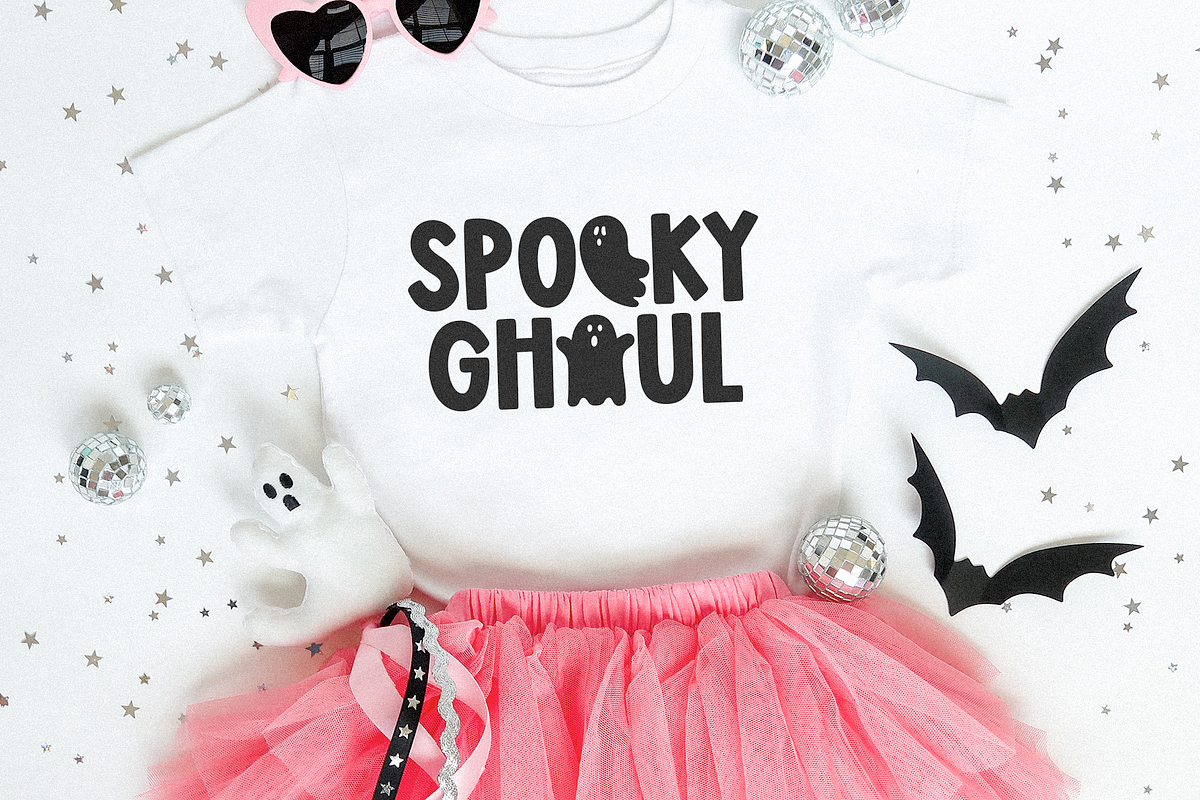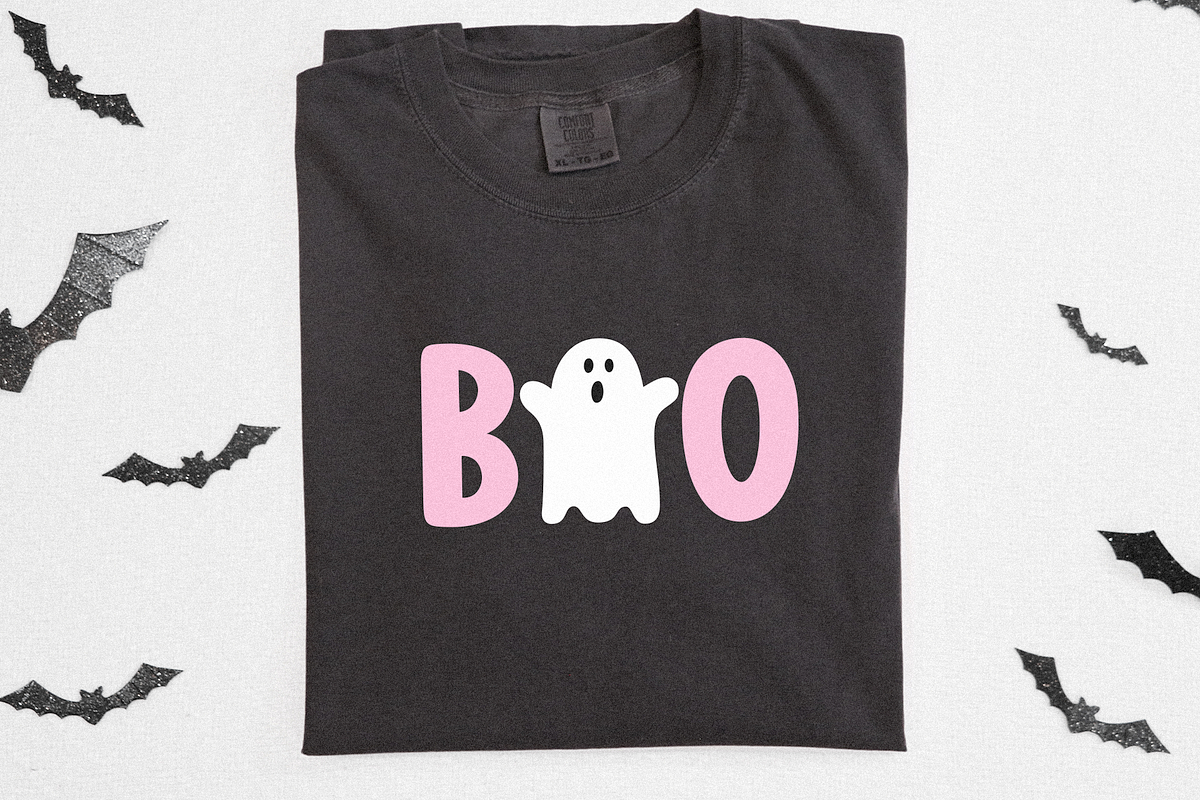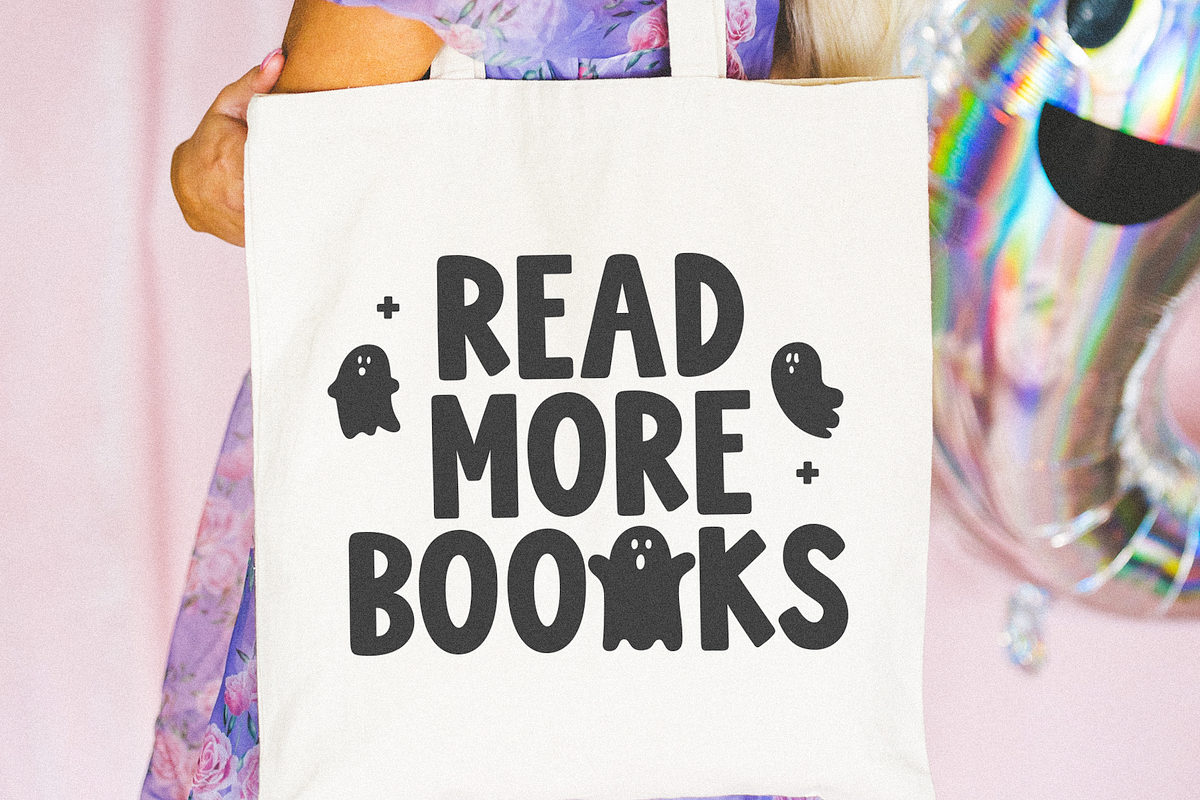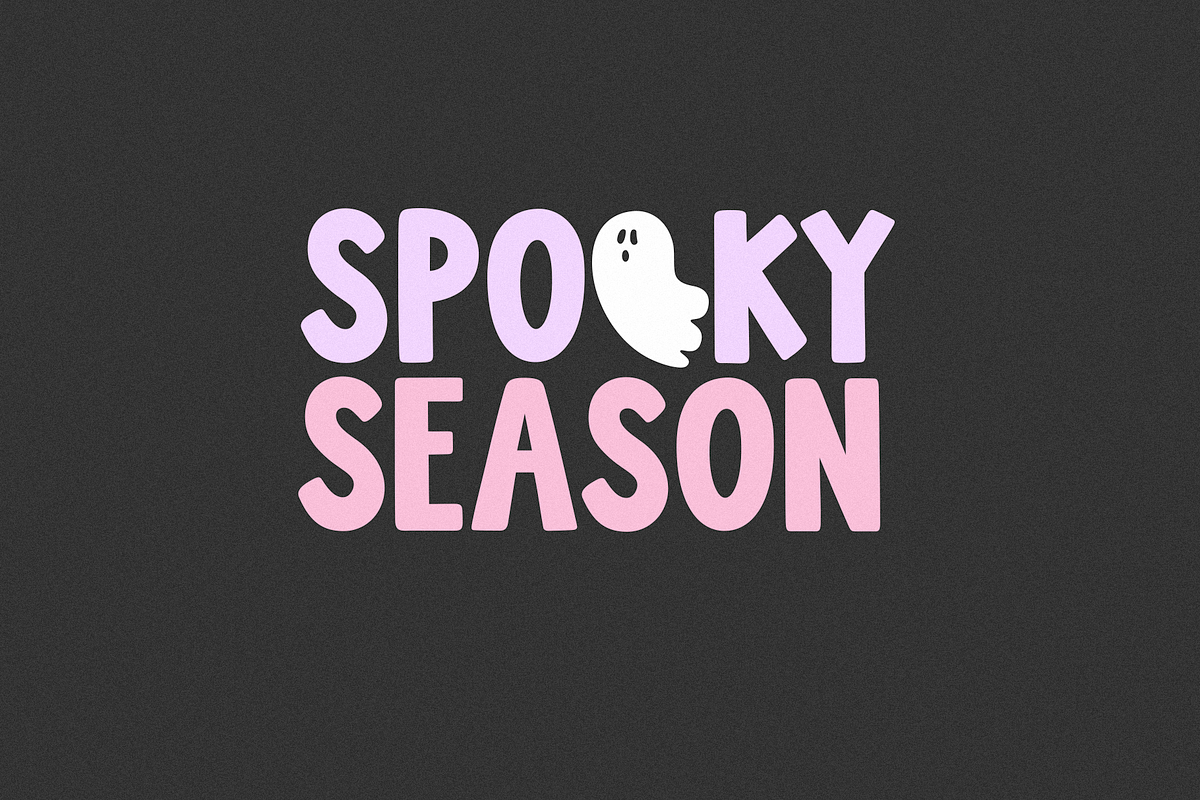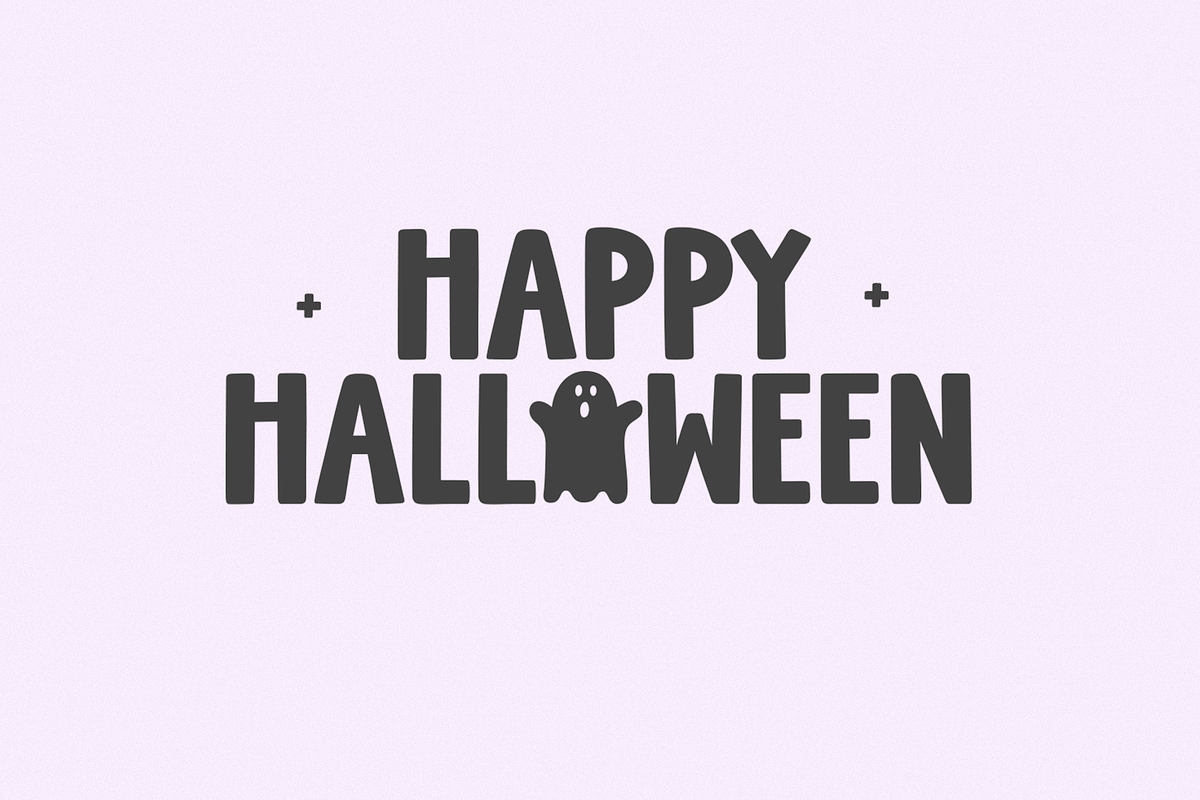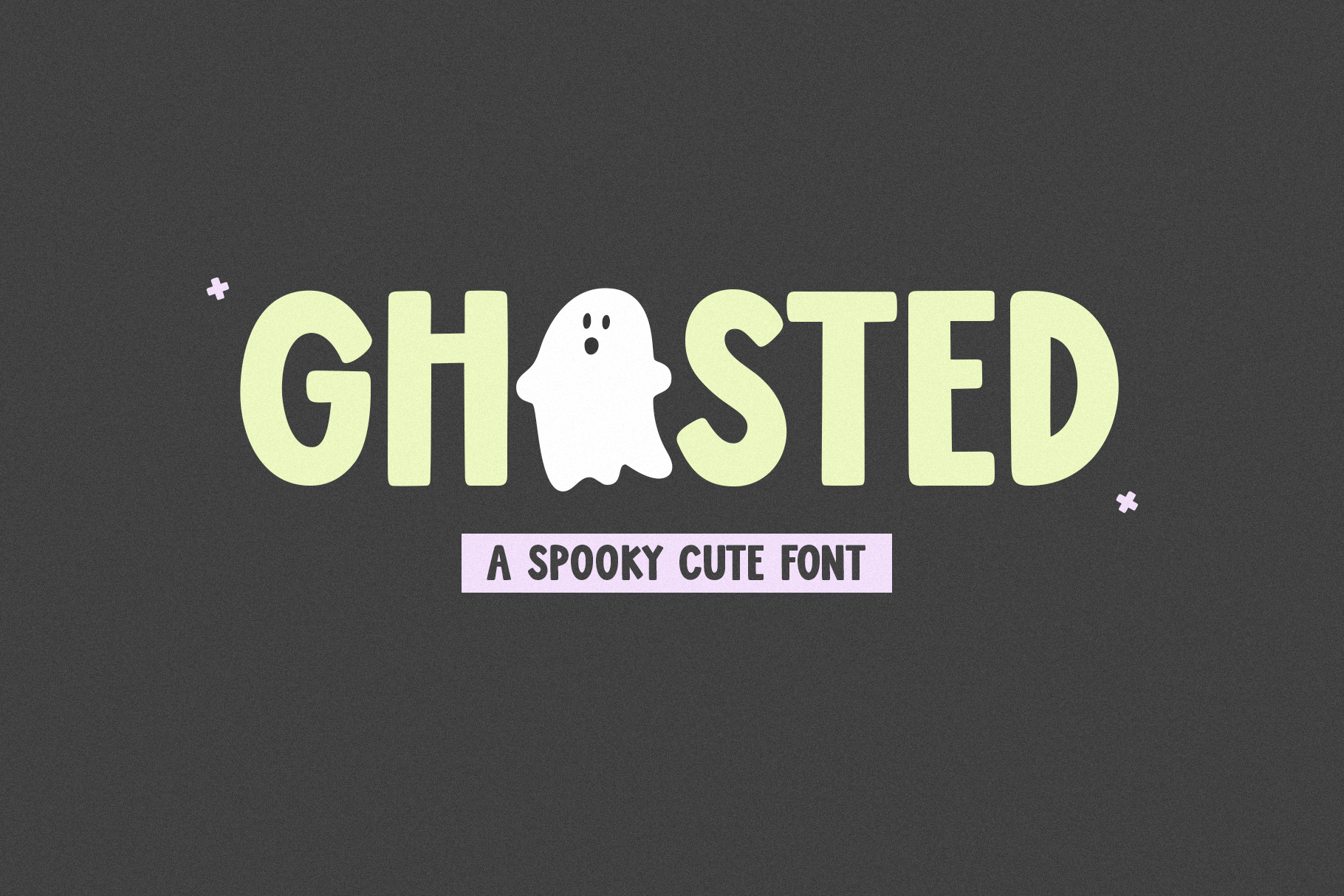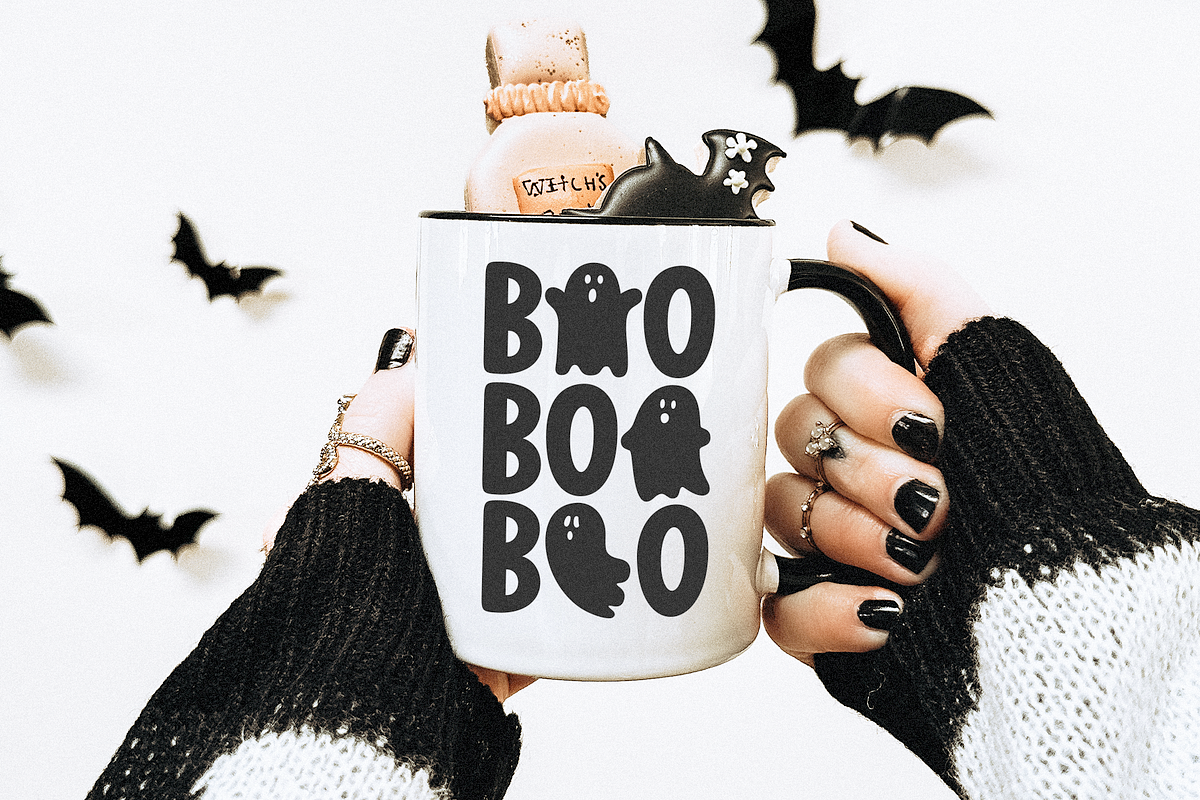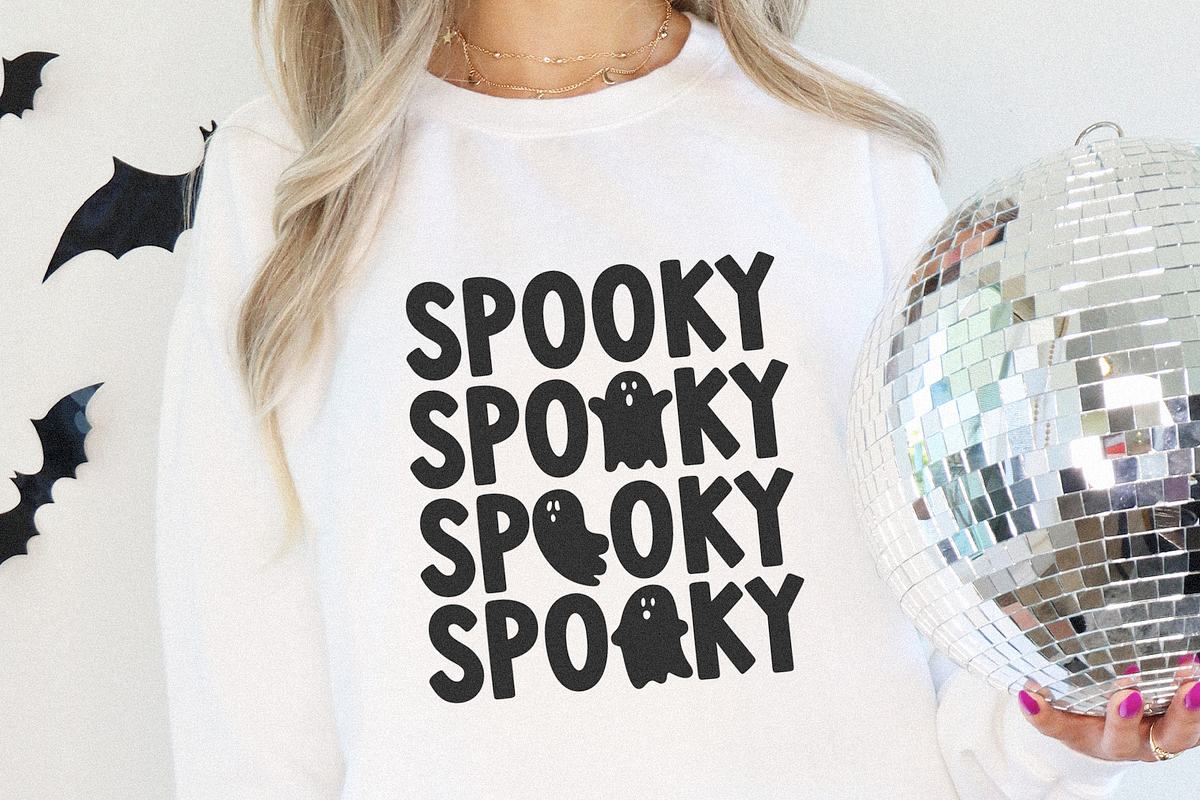
Ghosted | Cute Ghost Font
Ghosted is a cute Halloween font. Use keys o, ~, ^ to access ghost accents
This font is perfect for craft projects, Halloween invitations, logos, svg files, shirts, mugs, teachers, stickers and more!